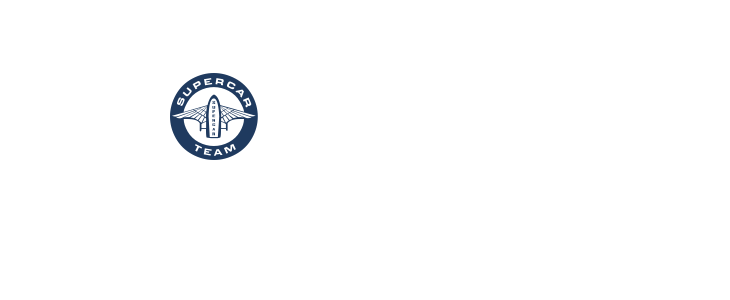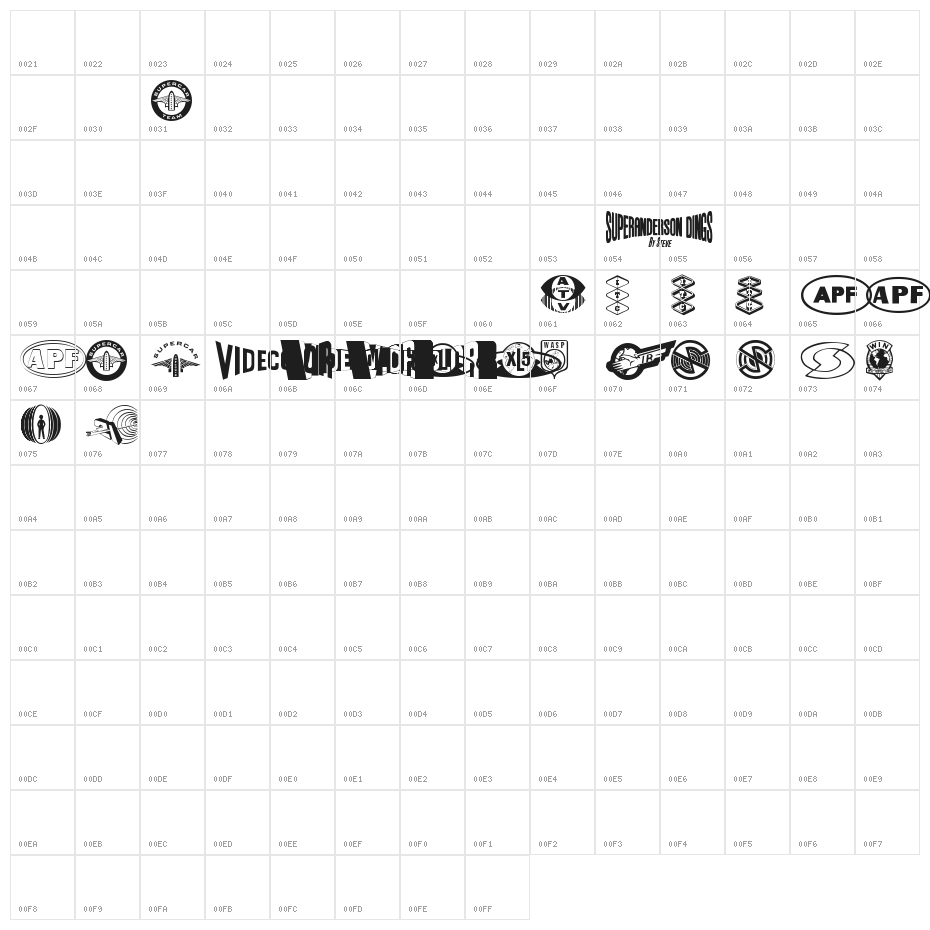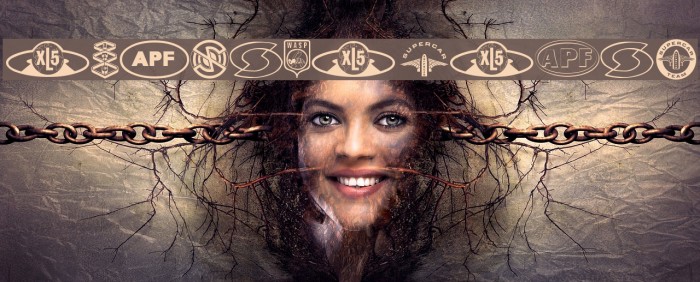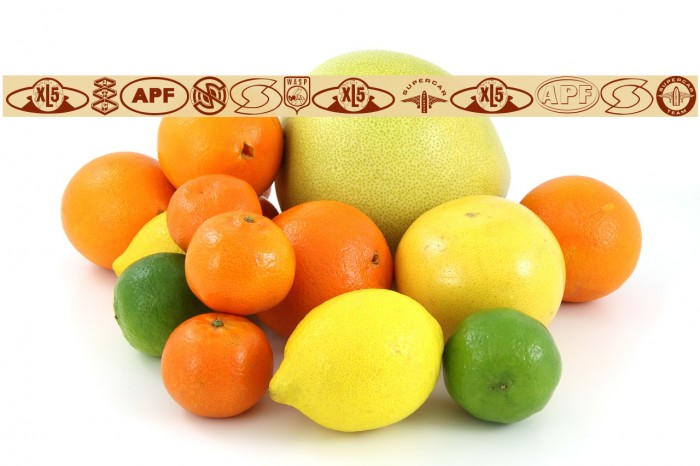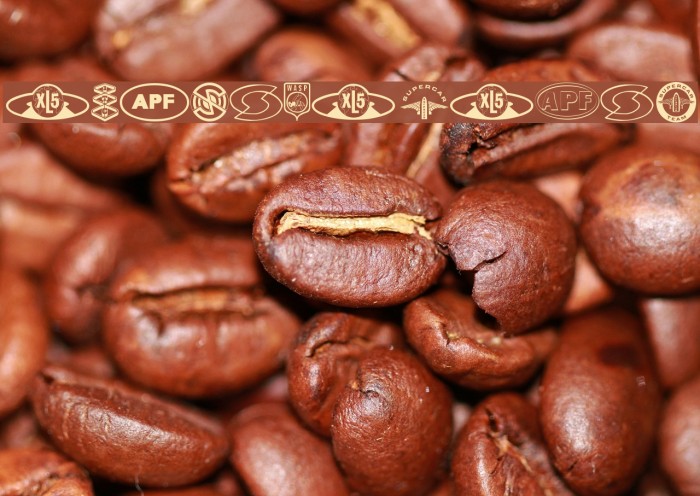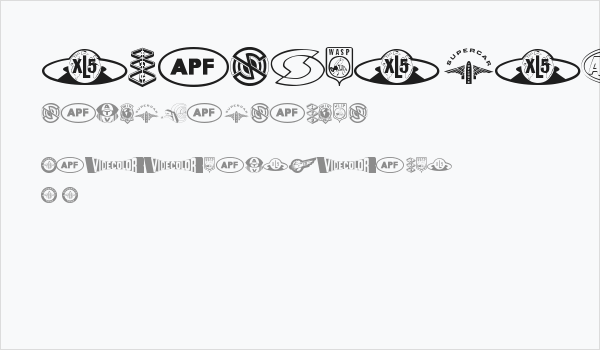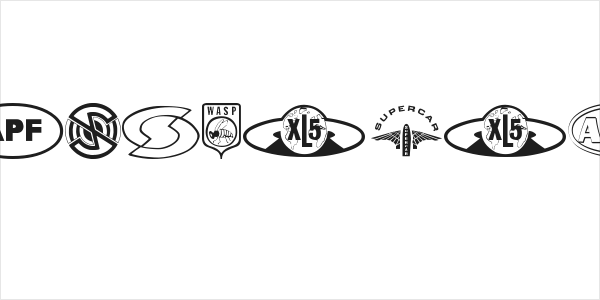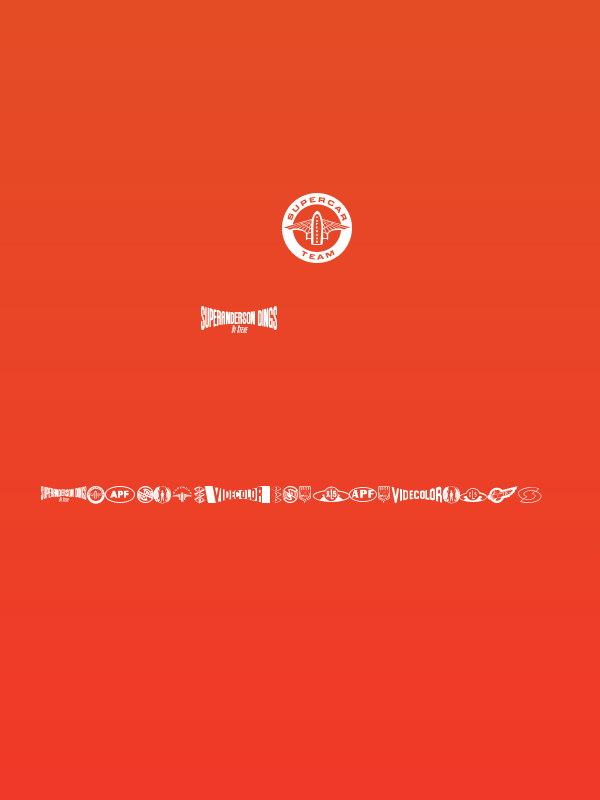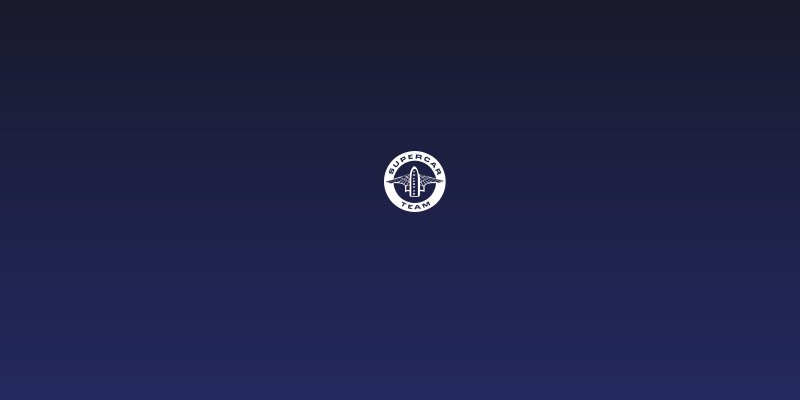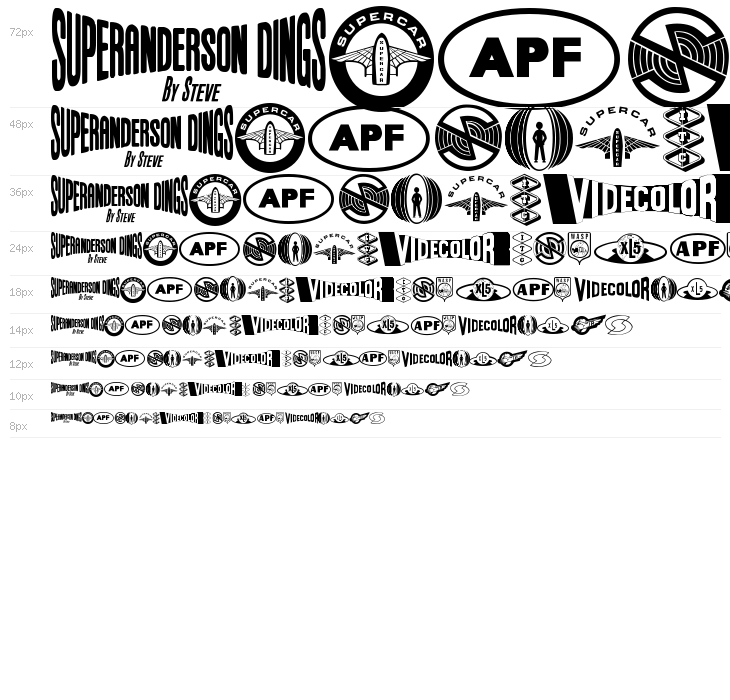
Anderson Dings 1 Font
Anderson Dings 1 Description
This collection features a series of unique and stylized logos and emblems, each with a distinct retro-futuristic aesthetic. The designs incorporate bold, geometric shapes and intricate details, reminiscent of mid-20th-century science fiction themes. The overall style is decorative and playful, with a focus on visual impact and nostalgia. The elements are well-suited for projects that aim to evoke a sense of vintage sci-fi or retro pop culture. The collection includes a variety of symbols, each with its own character and flair, making it versatile for creative applications.
| Use Case | Logos, Decorative elements |
| Proposed Projects | Ideal for retro-themed branding, sci-fi event posters, vintage merchandise, and creative design projects. |